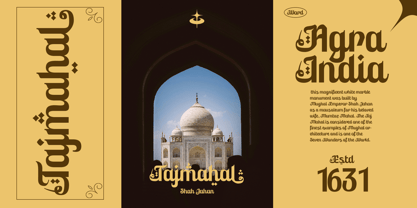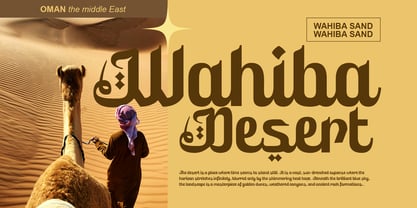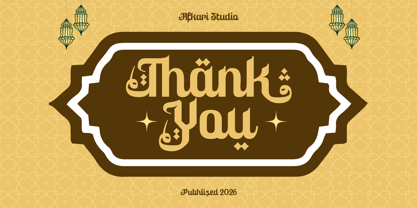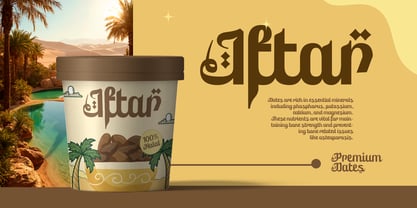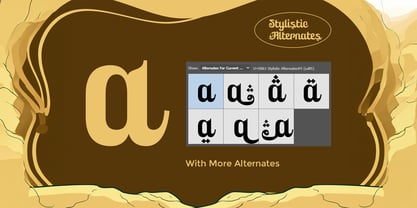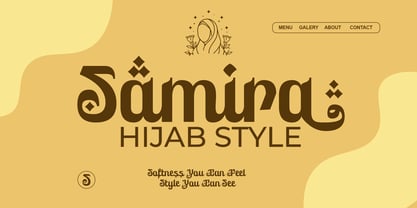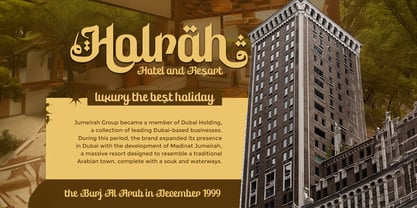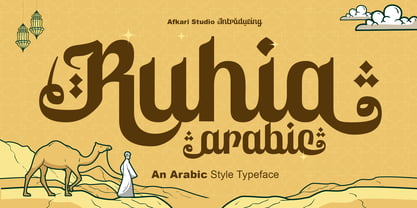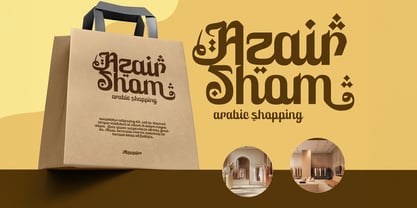
Ruhia Arabic
La famille de polices Ruhia Arabic a été conçue par Musthafa Kamal Emje et publiée par Afkari Studio. Ruhia Arabic contient 1 styles. En savoir plus sur cette famille
Ruhia Arabic is a distinctive Arabic-style typeface that blends the beauty of Middle Eastern calligraphic influence with modern display typography. Designed to capture an authentic Arabic visual character while remaining highly readable in Latin-based layouts, this typeface is perfect for projects seeking an exotic, cultural, or elegant Islamic-inspired aesthetic. The letterforms feature flowing curves, sharp terminals, and rhythmic strokes inspired by traditional Arabic script, creating a strong and expressive personality. Ruhia Arabic works beautifully in branding, packaging, posters, restaurant menus, Ramadan and Islamic event designs, travel promotions, and cultural-themed visuals. Whether used for logos, headlines, social media graphics, or product packaging, this typeface adds a luxurious and culturally rich touch while maintaining modern versatility. Ruhia Arabic is ideal for designers who want to combine contemporary design needs with timeless Arabic artistic influence. Features; - Uppercase, Lowercase, Number, and Punctuation - Special Alternates - Works on PC & Mac, Simple installations - Accessible in Adobe Illustrator, Adobe Photoshop, Adobe InDesign, and even work on Microsoft Word - PUA Encoded Characters – Fully accessible without additional design software. - Mültîlíñgúãl Sùppört for; ä ö ü Ä Ö Ü ß ¿ ¡ Bring authentic Middle Eastern character into your designs with modern versatility with Ruhia Arabic style display typeface.